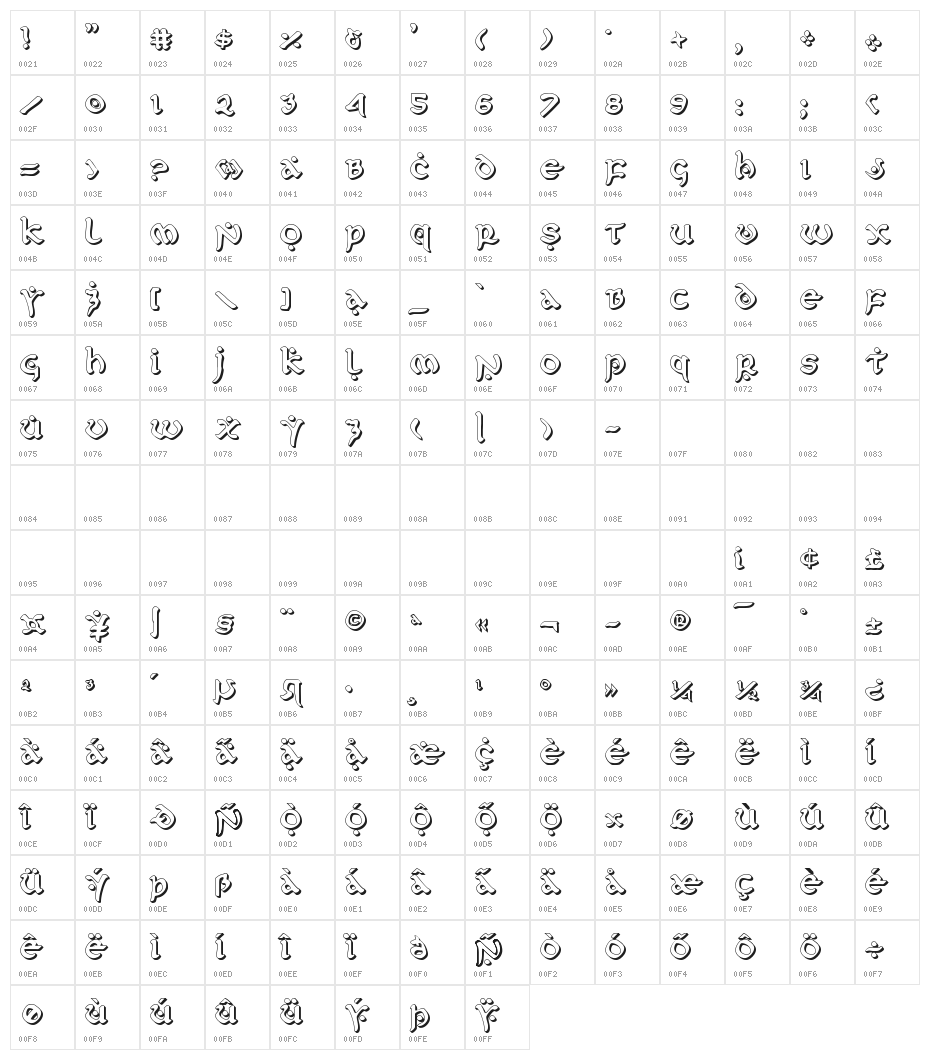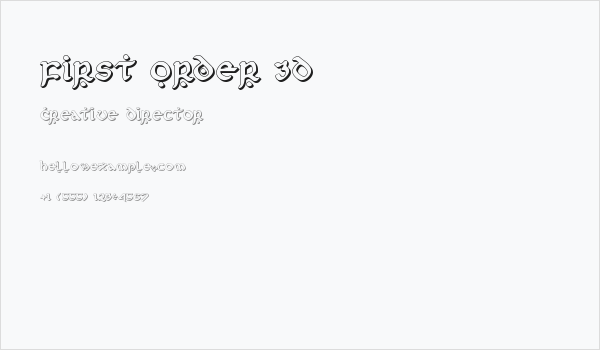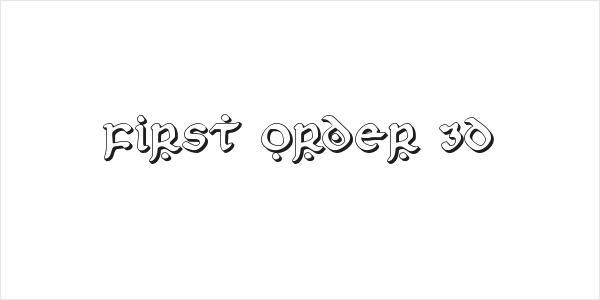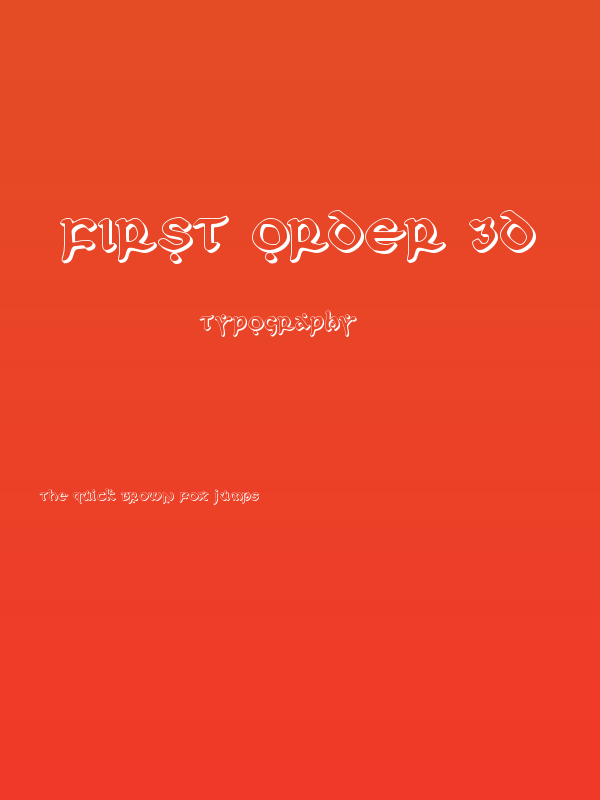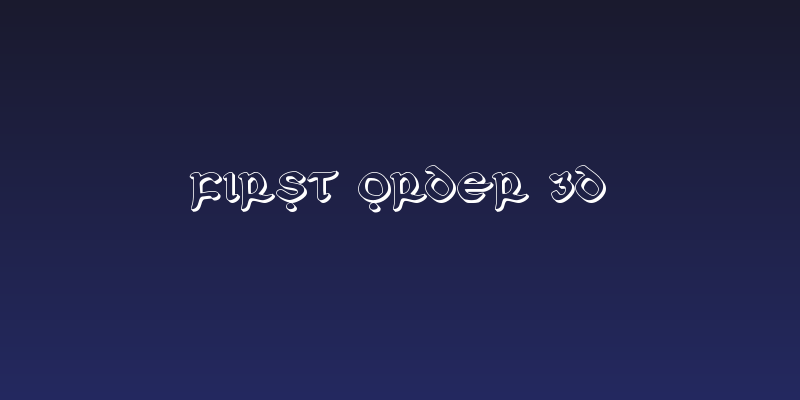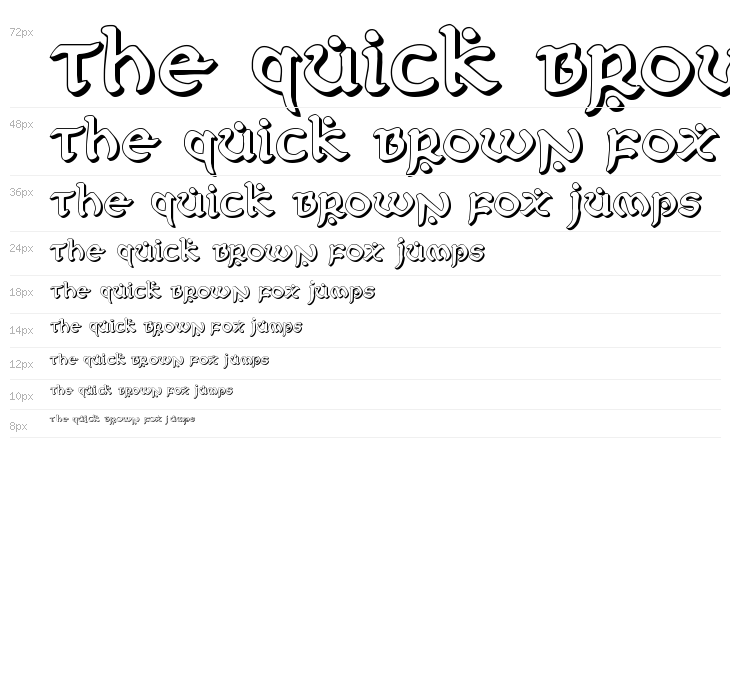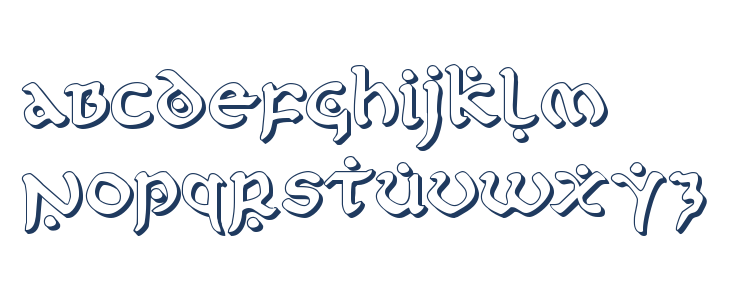
First Order 3D Font
First Order 3D Description
This font features a bold, three-dimensional style with a playful and decorative appearance. The letters have a shadow effect that gives them a sense of depth, making them stand out prominently. The characters are rounded with smooth curves, and the overall design is reminiscent of a cartoon or comic book style. The font includes both uppercase and lowercase letters, numbers, and a variety of special characters, all maintaining the same 3D effect. The playful nature of the font makes it suitable for creative and informal projects.
| Proposed Projects | Ideal for children's book covers, comic strips, playful branding, and creative posters. |